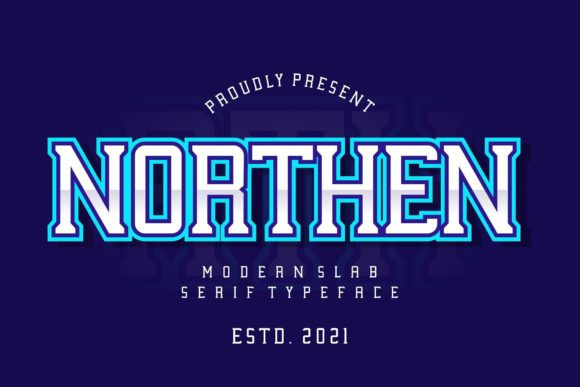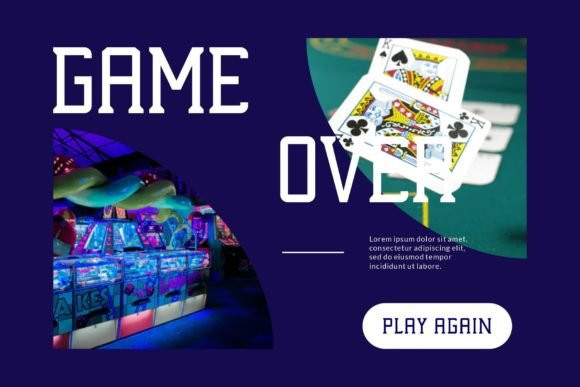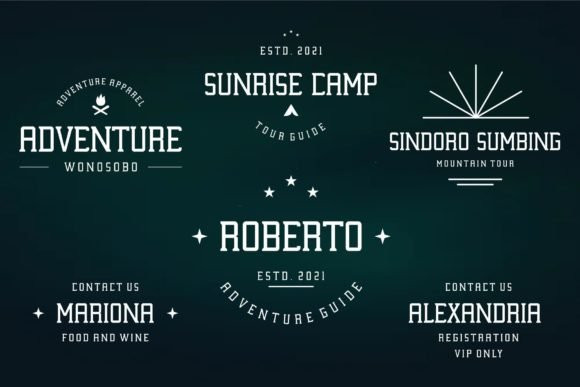
NORTHEN Font
Northen is a bold and assertive serif font. Expertly designed to make your creation look out of this world, this font will look gorgeous on a variety of ideas.